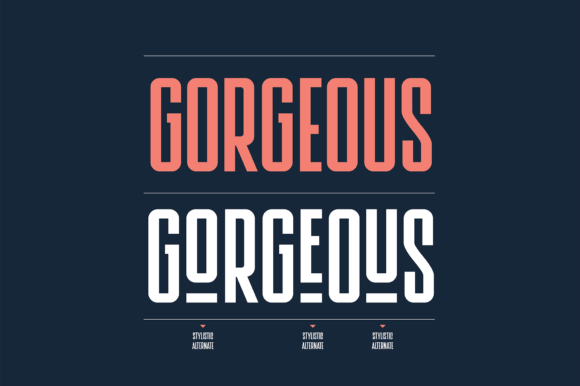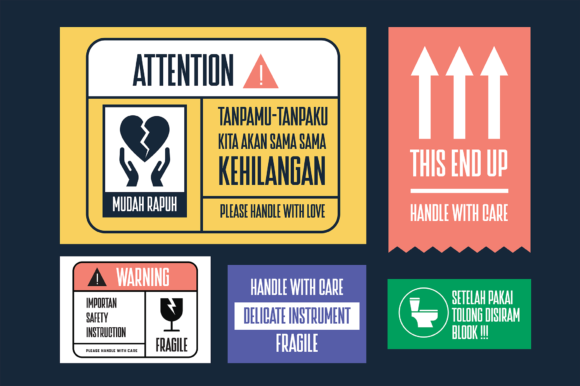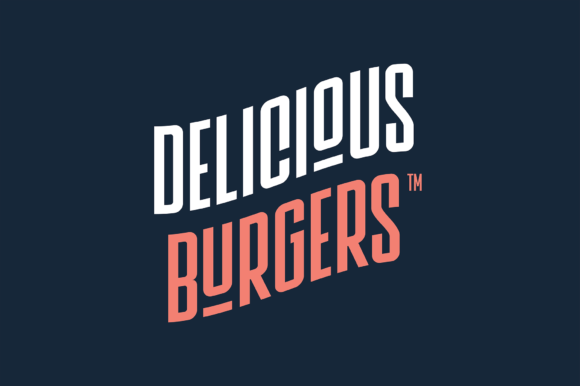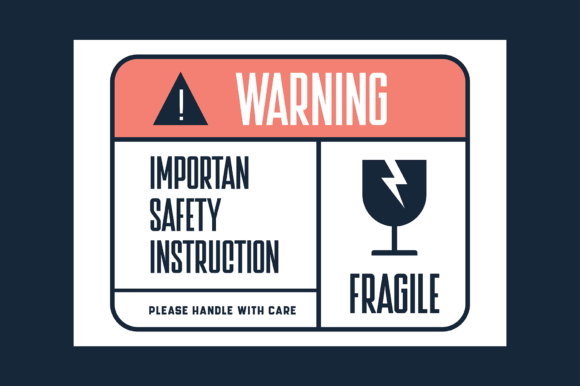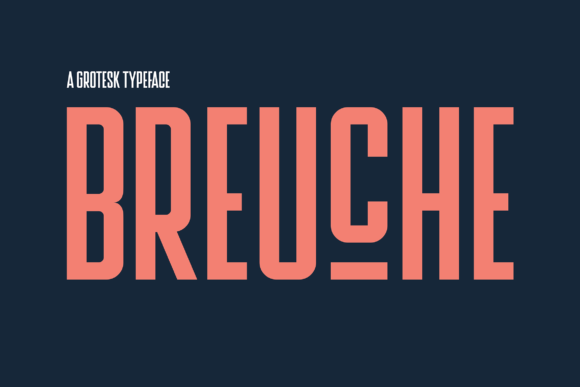
The Breuche Font: A Bold and Beautiful Addition to Your Design Arsenal
I’ll never forget the time I was working on a project for a client who wanted a bold, eye-catching font to make their business cards stand out. I scoured the internet, trying out font after font, but nothing seemed quite right. That was until I stumbled upon the Breuche font. With its simple, bold, and thick lettering, it was the perfect solution to my design dilemma. In this article, I’ll share my experience with the Breuche font, its features, and how to make the most of it in your designs.
An Honest Review of Breuche Font
• ✨ Bold and eye-catching: The Breuche font is perfect for making a statement in your designs. Its thick lettering demands attention and adds a touch of sophistication to any project.
• ✅ Versatile: Whether you’re designing a website, business card, or social media graphic, the Breuche font is a great choice. Its simplicity makes it easy to pair with other fonts and design elements.
• 🎨 Highly customizable: With its OpenType features and glyphs, you can easily customize the Breuche font to fit your design needs.
While the Breuche font is an excellent choice for many designs, there are a few things to keep in mind:
• 🤔 Legibility at small sizes: While the Breuche font is bold and eye-catching, it can be a bit tricky to read at very small sizes. Make sure to test it out at different sizes to ensure it’s legible for your project.
• ⚠️ Limited styling options: The Breuche font is a display font, which means it’s best used for headlines and titles rather than body text. Be mindful of its limitations and use it accordingly.
The Story Behind Breuche Font
The Breuche font was designed by a team of typographers who wanted to create a bold and eye-catching font for modern designs. Inspired by classic sans-serif fonts, they crafted a unique and versatile font that’s perfect for a wide range of applications. From business cards to billboards, the Breuche font is sure to make a statement.
Q: What is the Breuche font best used for?
A: The Breuche font is ideal for display purposes, such as headlines, titles, and business cards. Its bold and eye-catching design makes it perfect for making a statement.
Q: Is the Breuche font easy to read?
A: The Breuche font is generally easy to read, but it can be a bit tricky at very small sizes. Make sure to test it out at different sizes to ensure it’s legible for your project.
Q: Can I customize the Breuche font?
A: Yes, the Breuche font comes with OpenType features and glyphs that allow for customization. You can access these features in compatible design software, such as Adobe Photoshop and Illustrator.